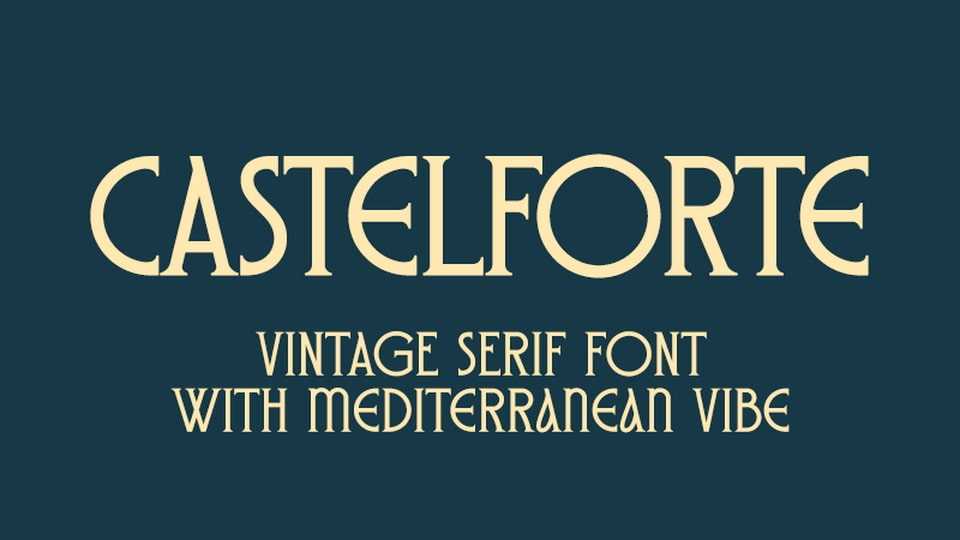
Download Castelforte font, neo-classical typeface with a condensed structure. Castelforte is inspired by classical antiquity, drawing specific inspiration from Old Roman and Ancient Greek typography.
Designer: Ivan Filipov